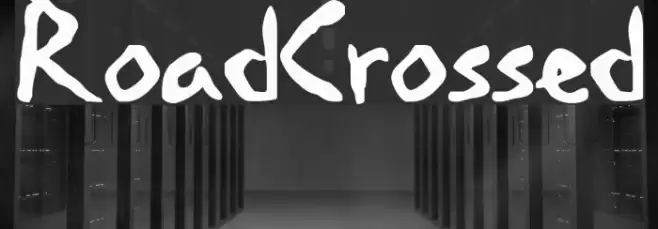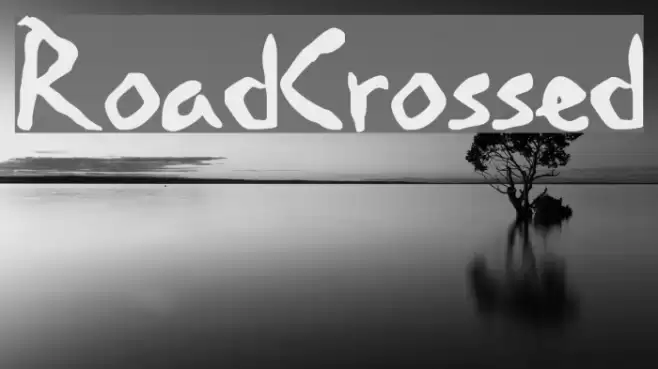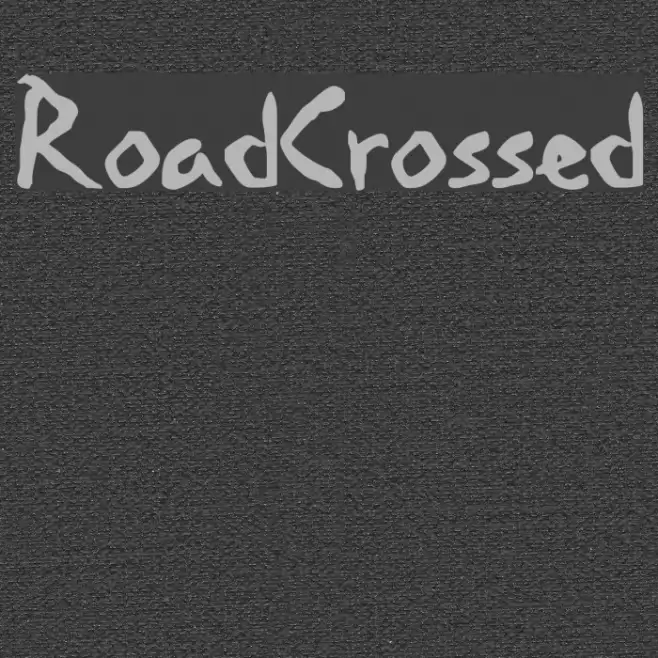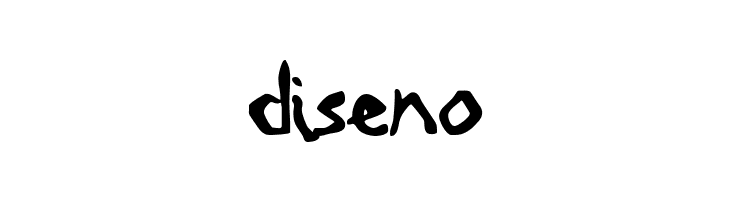
Road-Crossed Font
This font features a bold and expressive style, characterized by its irregular and hand-drawn appearance. The strokes are uneven, giving it a dynamic and energetic feel. The uppercase letters are bold and slightly condensed, while the lowercase letters maintain a consistent flow with a touch of whimsy. The font's unique style is reminiscent of graffiti or street art, making it stand out with its artistic flair. The characters are well-defined, yet they maintain a casual and informal look, perfect for projects that require a creative and unconventional touch.
A bold, hand-drawn font with an expressive and artistic style from Handwritten fonts.
- Proposed Projects: Ideal for street art designs, creative posters, album covers, or any project needing a bold, artistic touch.
- Use Case: Logos, Headlines, Creative projects